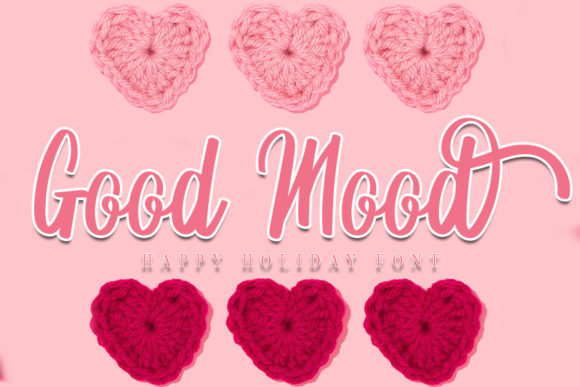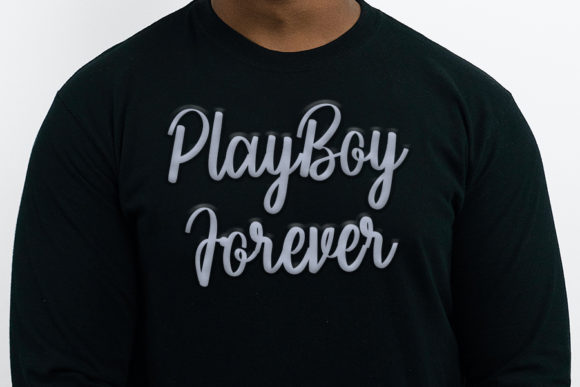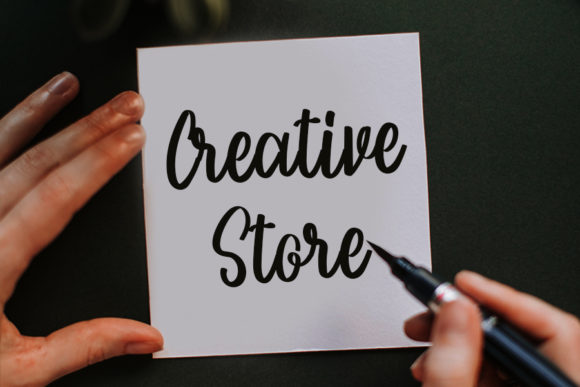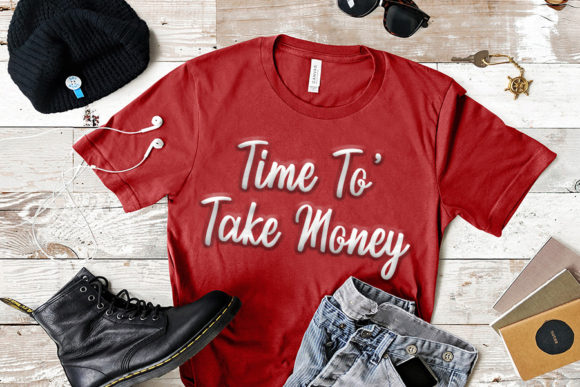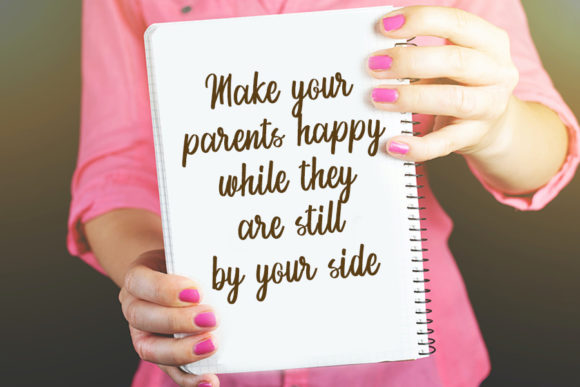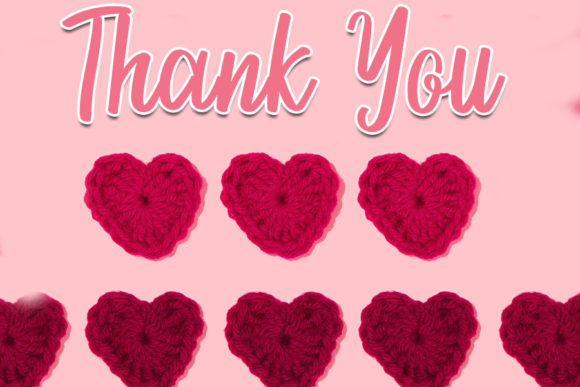
Good Mood Font
About Good Mood Font
Good Mood is a neat and friendly script font. It has a simple and natural style and is the best choice for creating social media posts, websites, flyers, invitations, and any other design that needs a customized touch.